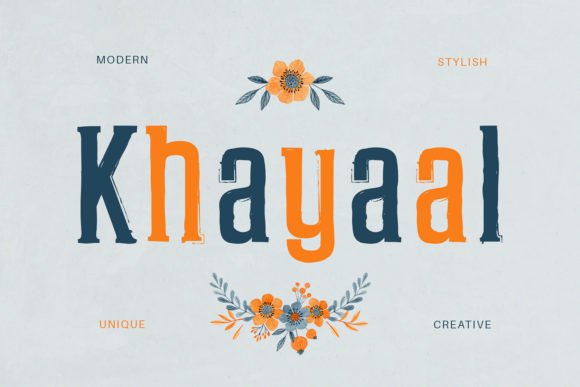
Immerse yourself in the captivating world of Khayaal, an exquisite display font that exudes modernity, sophistication, and a touch of ethereal charm. This handcrafted masterpiece boasts meticulously crafted characters that dance harmoniously on the page, striking a perfect balance between aesthetics and functionality.
Awaken your creativity with Khayaal, a font that seamlessly adapts to your every design whim. Whether you're crafting elegant packaging, captivating presentations, or unforgettable logos, Khayaal's versatility knows no bounds. Its bold strokes and impeccable style lend a touch of sophistication to any project, making it the perfect choice for headlines that demand attention and lettering that inspires awe.
Unleash your imagination and let Khayaal guide you through the realm of exceptional typography. Its enchanting characters will transform your posters into works of art, making your every word resonate with the timeless allure of true artistry. Elevate your branding with Khayaal, where each letter becomes a testament to your impeccable taste and discerning eye.
With Khayaal, you'll discover a font that knows no creative limits. Its adaptability extends to quotes and titles, magazine headings, and web layouts, ensuring that your message captivates audiences across every platform. Engage your readers with Khayaal's captivating presence, making your words dance off the page with an unforgettable rhythm.
Indulge in the beauty of Khayaal and let your designs take flight. Its striking aesthetics and versatility will captivate your audience, leaving a lasting impression that lingers long after the page is turned.